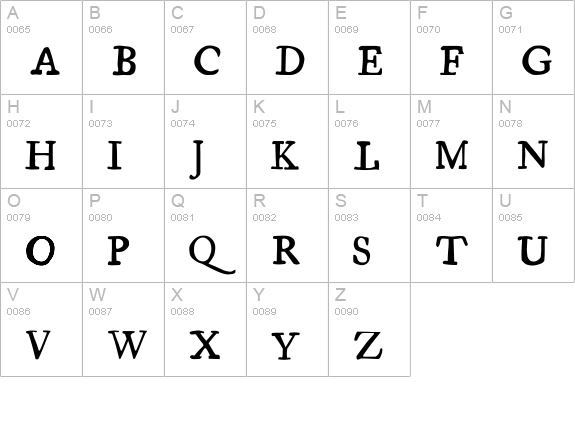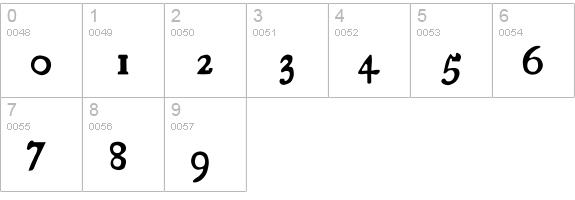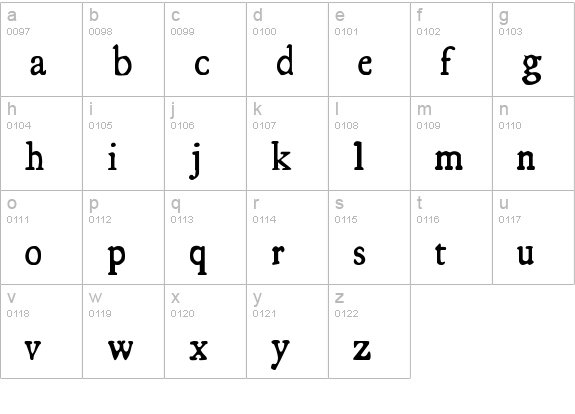
Essays 1743 Font Details
Essays 1743 font is a timeless and elegant typeface that exudes sophistication and class. With its delicate serifs and graceful curves, this font is perfect for adding a touch of refinement to any project. Whether you're designing a wedding invitation, creating a logo, or crafting a piece of editorial content, Essays 1743 font is sure to elevate your design to the next level. What's even better is that Essays 1743 font is freely available to download at FontsMarket.com. This means that you can access this exquisite font without any cost, making it a valuable resource for designers, writers, and creatives alike. Don't miss out on the opportunity to enhance your work with the beauty and versatility of Essays 1743 font – download it today and see the difference it can make in your projects!